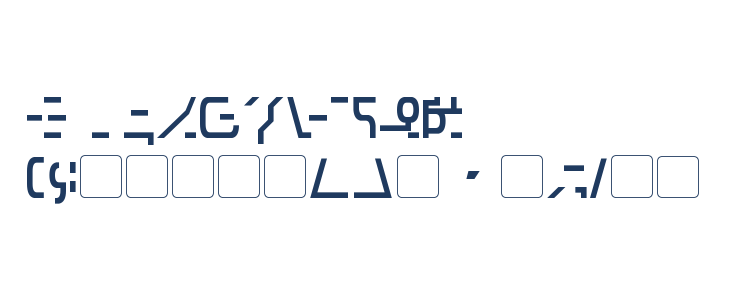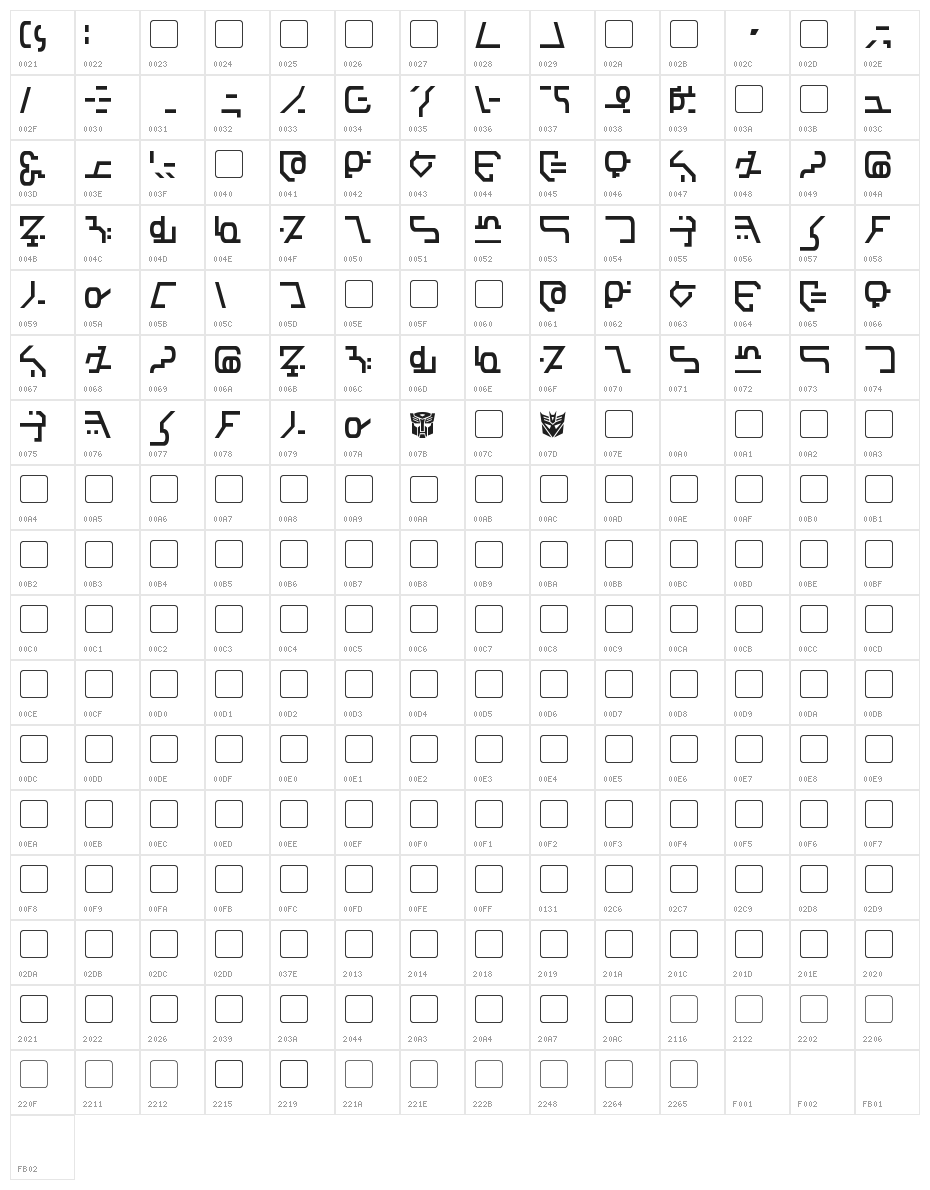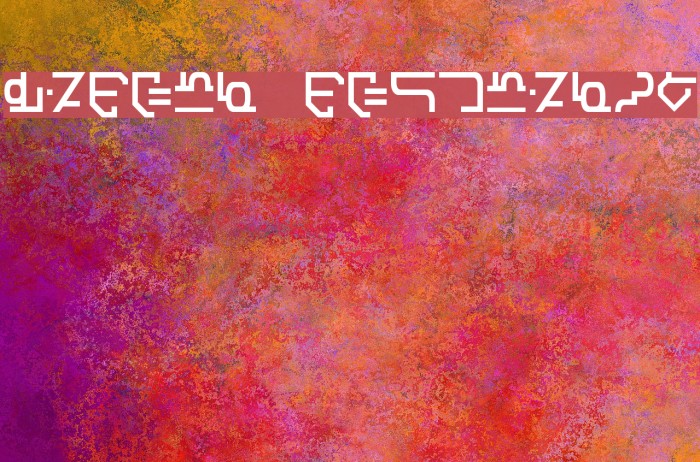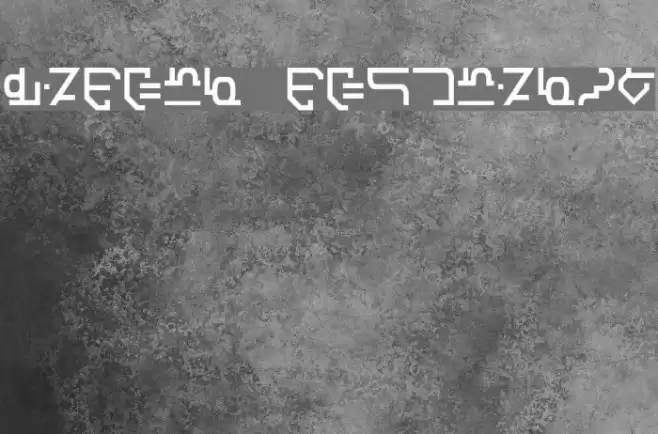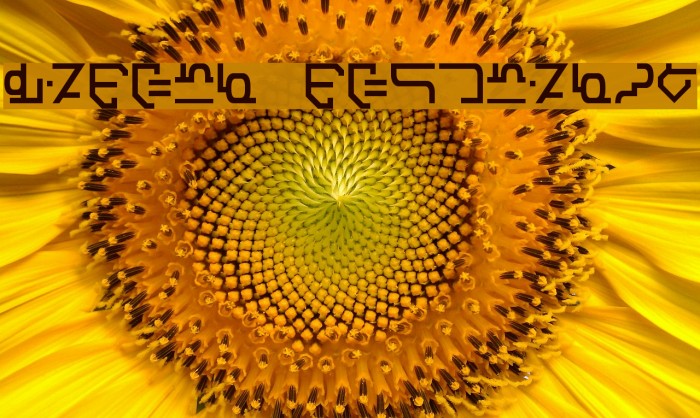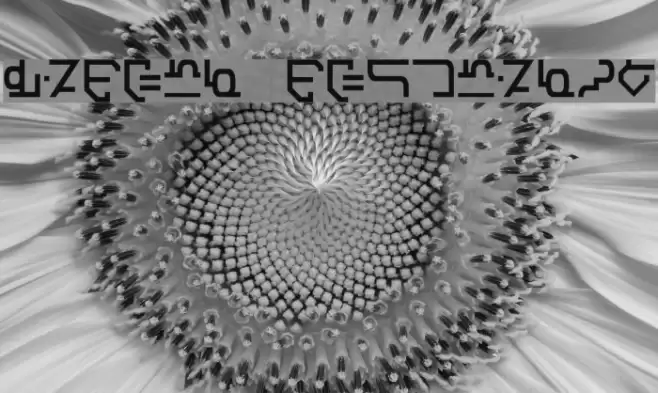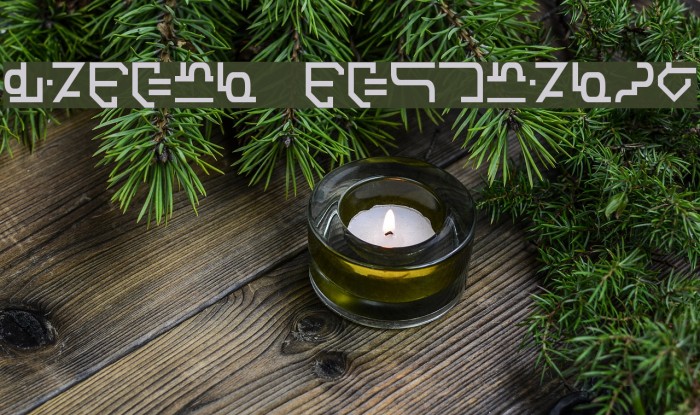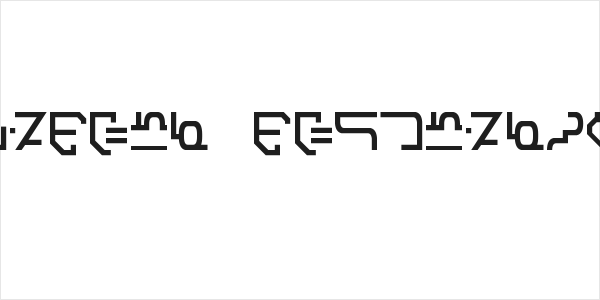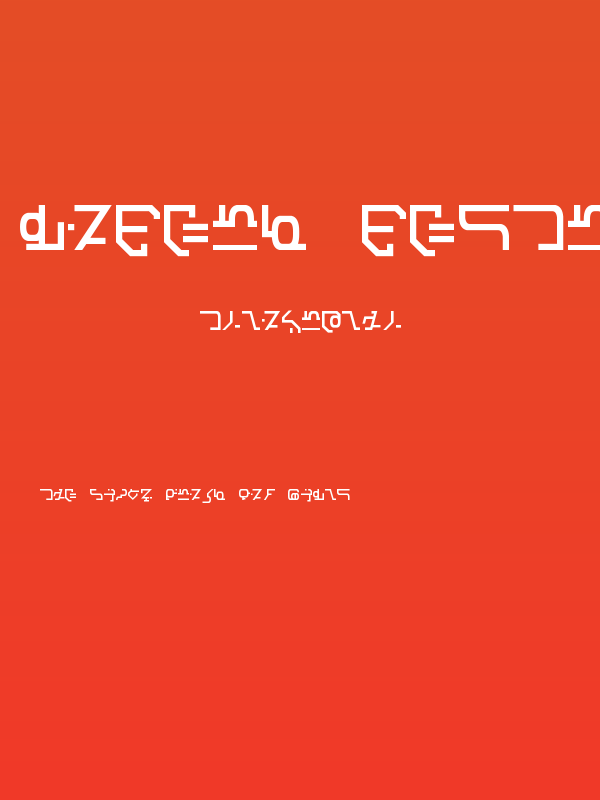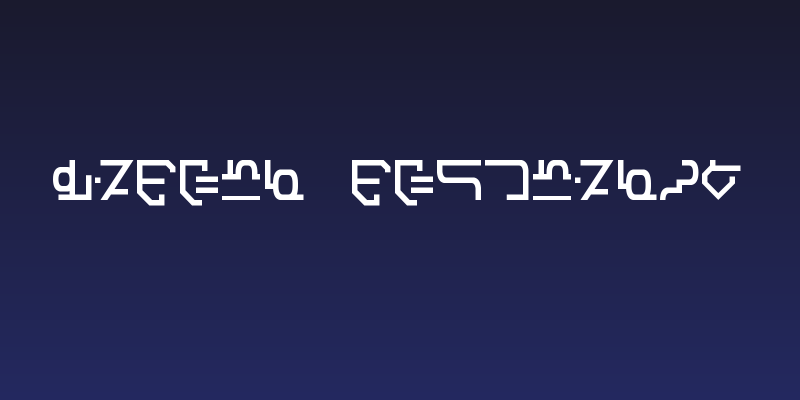
Modern Destronic Font
Modern Destronic Description
This font features a highly stylized and futuristic design, characterized by geometric shapes and angular forms. The characters are constructed with a series of sharp angles and straight lines, creating a digital or sci-fi aesthetic. The font lacks traditional curves, opting instead for a more mechanical and structured appearance. This design choice gives it a unique, modern look that stands out in digital and tech-themed contexts. The characters are evenly spaced, maintaining a consistent visual rhythm across text. The font's distinct style makes it ideal for projects that require a bold and unconventional typeface.
| Use Case | Logos, Headlines, Digital interfaces |
| Proposed Projects | Ideal for tech-themed designs, video game interfaces, sci-fi movie posters, and digital art projects. |